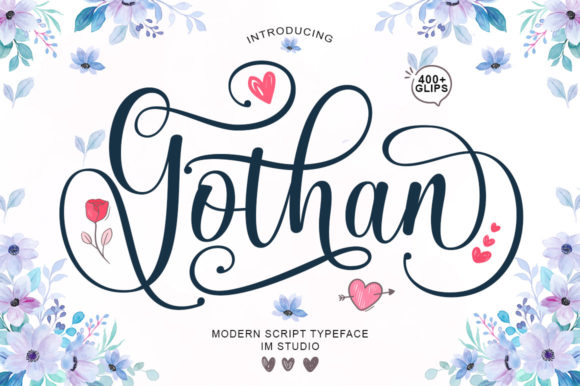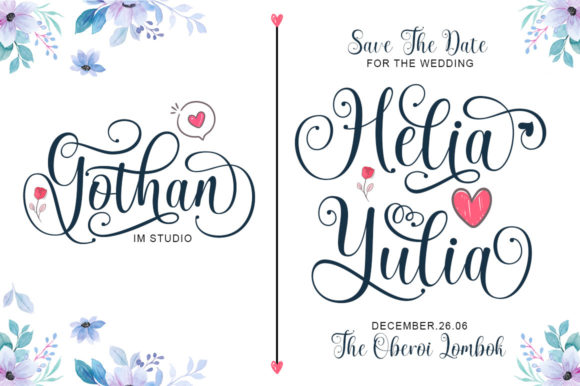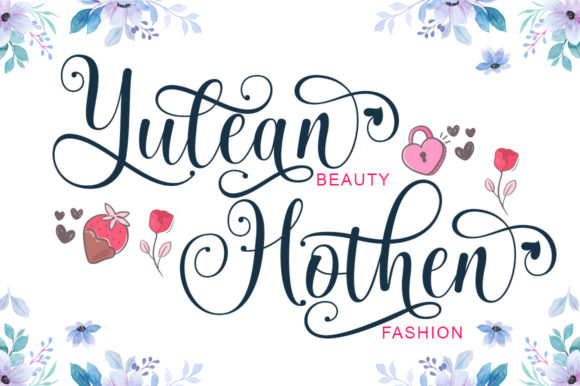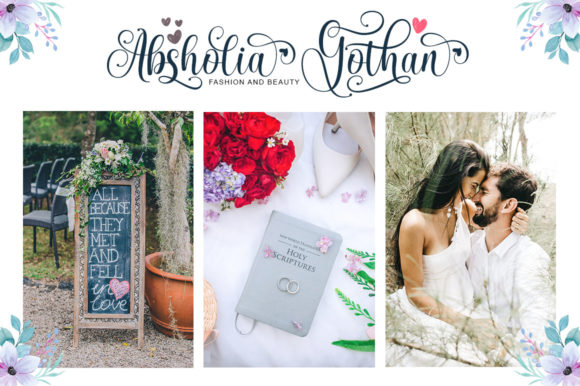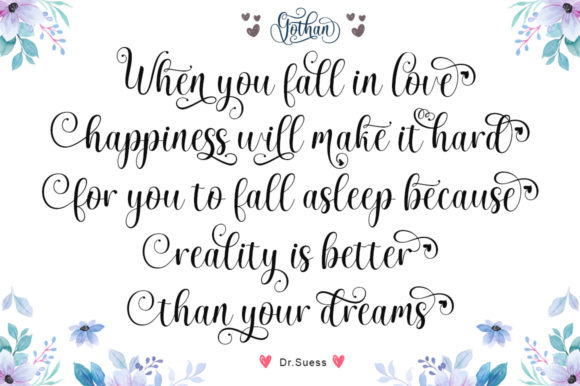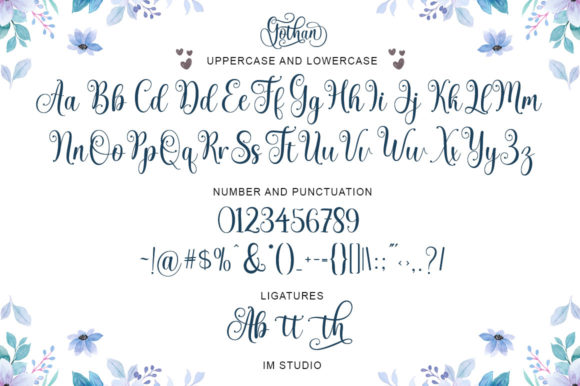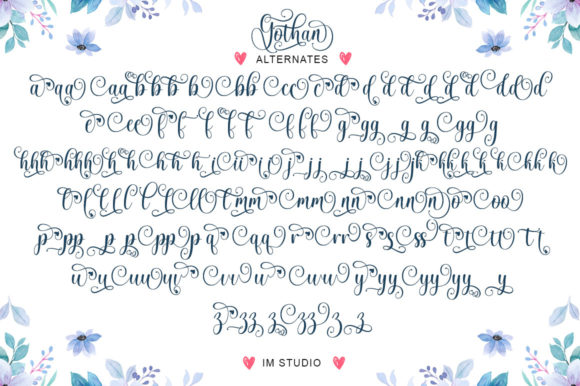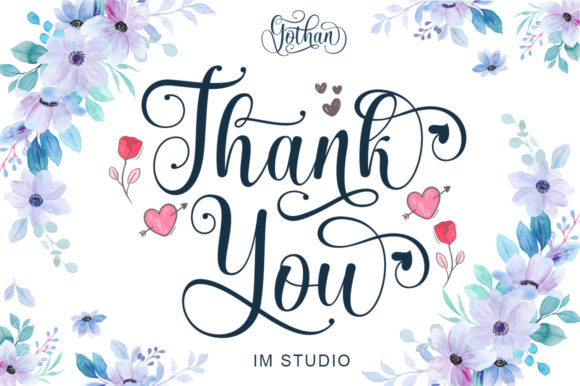
Gothan Script Font
About Gothan Script Font
Gothan Script is an exquisite calligraphy typeface with characters that dance along the baseline. It will add a luxury spark to any design project that you wish to create! This font is PUA encoded which means you can access all of the amazing glyphs and ligatures with ease!